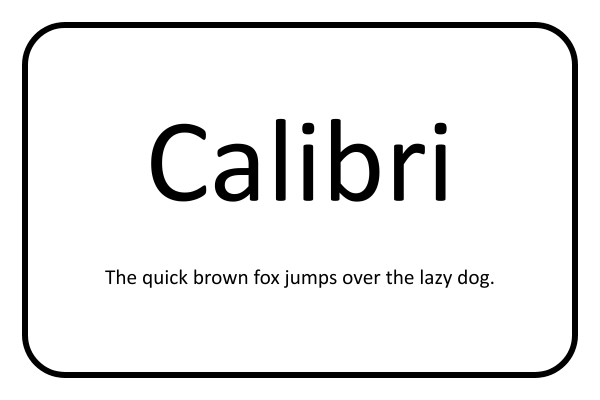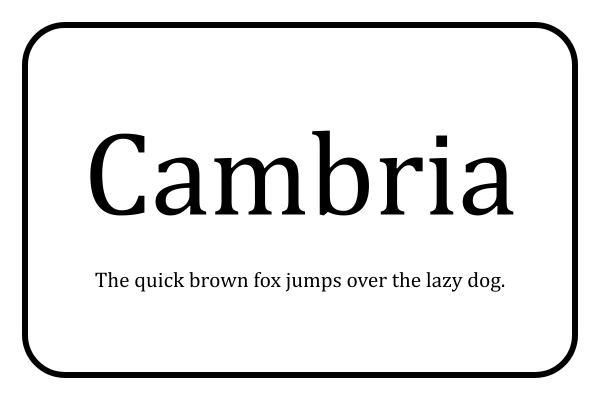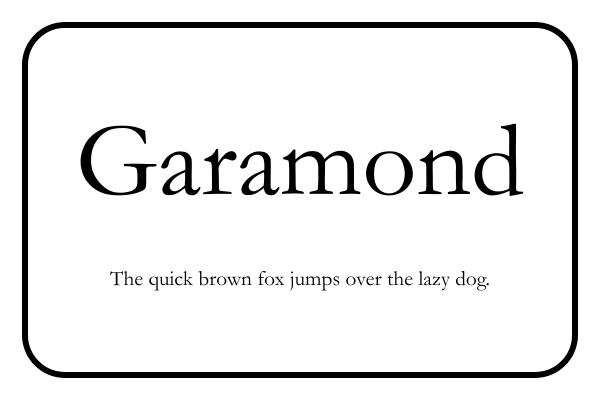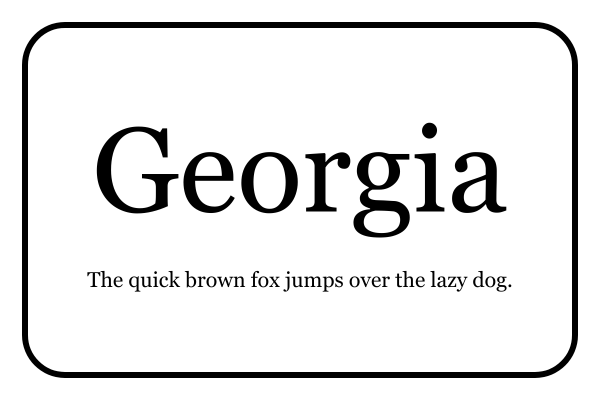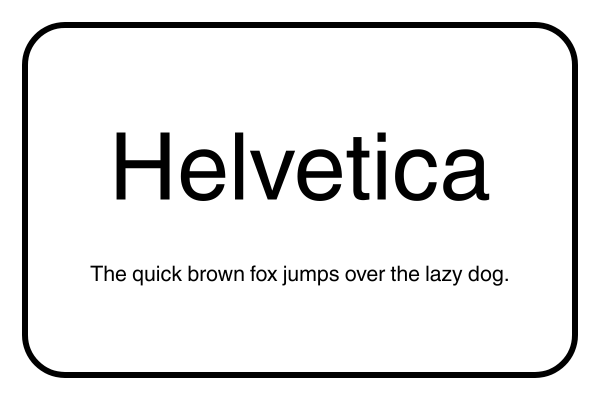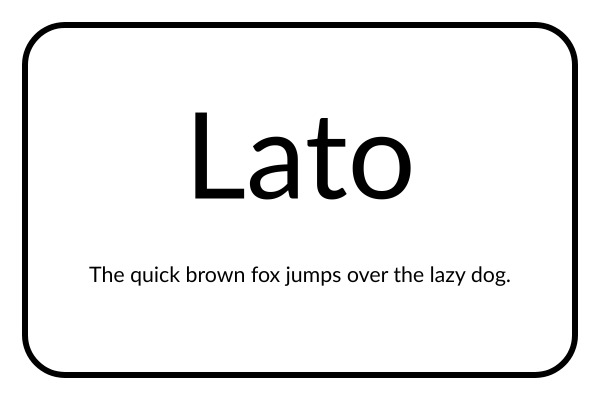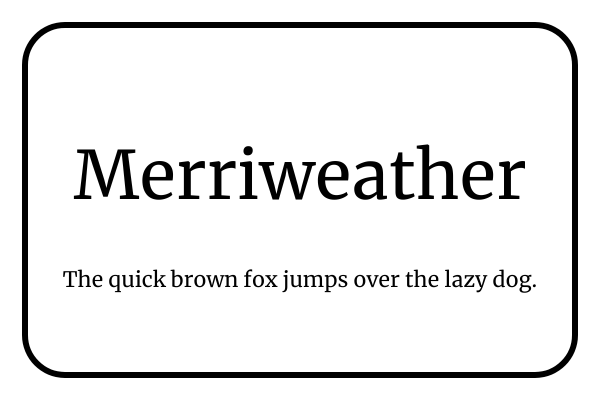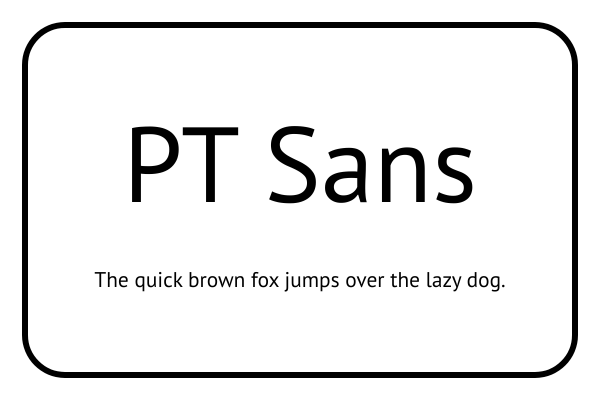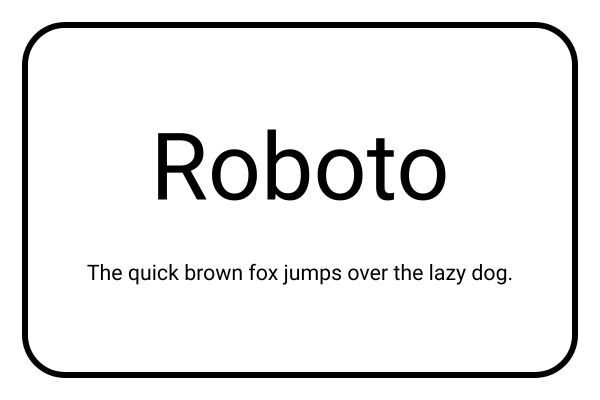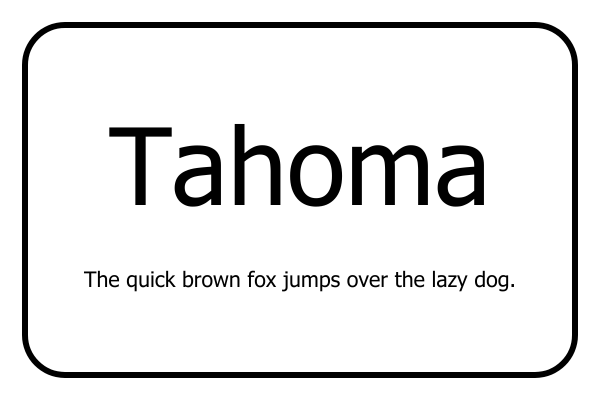
12 Best Fonts for Resumes in 2025 (With Formatting Tips)
Choosing a resume font can make or break your chances of landing a job. Use this guide to pick the right font for your resume.
The font you choose for your resume can shape the first impression you make on employers. A simple resume font that’s sized and formatted correctly will ensure readability and convey professionalism. In contrast, a poor choice of font can make your resume look cluttered and unprofessional.
So, what are the best fonts for a resume? This article will help you make an informed decision.
Why Your Resume Font Matters
Your resume communicates your top skills, assets, and hireability, and it needs to project professionalism. Choosing the right resume fonts impacts more than your resume’s aesthetics; it’s an important choice that ensures you can pass the initial round of resume reviews.
Applicant tracking systems (ATS) analyze your resume to check for must-have resume sections, required credentials, and skills and achievements. For the ATS to properly “read” your resume’s content, it needs to be able to easily scan your resume font. A font that’s too complex might not pass the ATS scan.
Beyond automated screening, recruiters take six seconds to decide whether or not to toss your resume. If a recruiter can’t read your words or is put off by an overly stylized font, you won’t even get a second look, so the right resume font and resume font size make a big difference.
12 Best Resume Fonts in 2025
Here’s a list of the best resume fonts, including serif and sans-serif styles, ATS-friendly options, pros and cons, and visual examples of how each font looks:
- Calibri
- Cambria
- Garamond
- Georgia
- Helvetica
- Lato
- Merriweather
- PT Sans
- Roboto
- Tahoma
- Trebuchet MS
- Verdana
1. Calibri
Calibri is a modern, sans-serif font that’s clean, professional, and easy to read on screens and in print. As the long-time default font in Microsoft Word, it’s widely recognized and accepted by recruiters, making it a safe choice for most industries.
- Pros: Readable and ATS-friendly, professional and familiar to employers, works well for both body text and headings
- Cons: Commonly used, so it may not stand out visually, and slightly less formal than traditional serif fonts
2. Cambria
Cambria is a serif font designed for readability both on-screen and in print. It has balanced letterforms and slightly wider spacing that make resumes look polished and formal. Cambria is often considered a modern alternative to Times New Roman.
- Pros: Professional, classic serif font with high screen readability
- Cons: Less modern or trendy than sans-serif fonts, may feel too formal for creative industries
3. Garamond
Garamond is an elegant, classic serif font known for its timeless style and readability. It gives resumes a professional and sophisticated look, making it a great choice for industries that are a bit more traditional, such as law or finance.
- Pros: Traditional serif font that’s visually appealing but still readable
- Cons: Can appear too formal for modern industries and startups
4. Georgia
Georgia is a classic serif font characterized by slightly larger letters and an elegant style. This professional yet approachable resume font gives resumes a polished, traditional look without feeling outdated.
- Pros: Classic appearance suitable for many industries, works well in both digital and printed resumes
- Cons: May feel too traditional for very creative or tech-focused roles
5. Helvetica
Helvetica is one of the most widely used fonts, with a huge impact in the world of graphic design. This sans-serif font is known for its high readability, simplicity, and modern design, often associated with Apple products and operating systems. If you want your resume to look professional and cutting-edge without sacrificing simplicity, Helvetica is the font for you.
- Pros: Sleek but professional appearance, versatile, widely recognized across industries
- Cons: May feel overused, can look impersonal
6. Lato
Lato is a modern sans-serif font with a clean yet friendly appearance. Its balanced letterforms and open spacing make it an approachable font that works for all industries and professions without sacrificing professionalism.
- Pros: Highly readable in both digital and print formats
- Cons: May feel too casual for highly conservative industries
7. Merriweather
Merriweather is a serif font with a classic, elegant design. This font has balanced letterforms and isn’t too decorative, making it a highly readable font appropriate for any industry.
Prioritize readability above all; less flourish is always better for a resume font. Classic, widely recognized fonts like Calibri, Helvetica, and Georgia are safe and professional choices. Modern, design-forward options like Merriweather and Roboto can help your resume feel polished and contemporary.
Ultimately, selecting a resume font and a resume template that aligns with your industry, complements your style, and enhances your resume’s readability ensures your resume leaves a strong, positive impression.